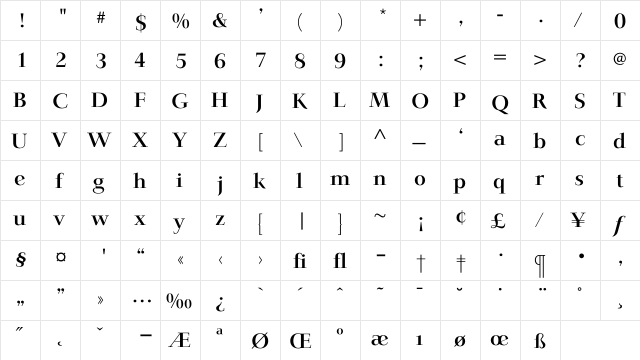
JardineBold Regular
Design Context for JardineBold Typeface
JardineBold is a composed and adaptable typeface that performs quietly and consistently across a wide range of design contexts. The heavy weight commands attention and anchors typographic hierarchies.
Pro Tip: Use JardineBold in both headline and body roles to test its range before committing to a single application.